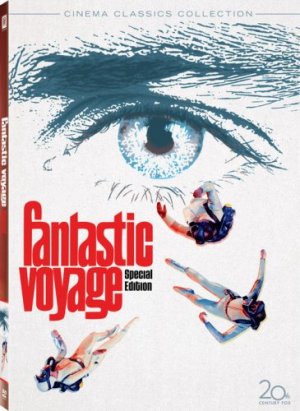
fantastic
named after the movie fantastic voyage - not for hyperbole. based on the font used for one of the movie posters. although i will say using brick scaling is fantastic!